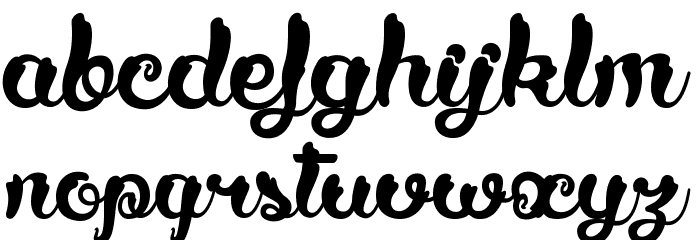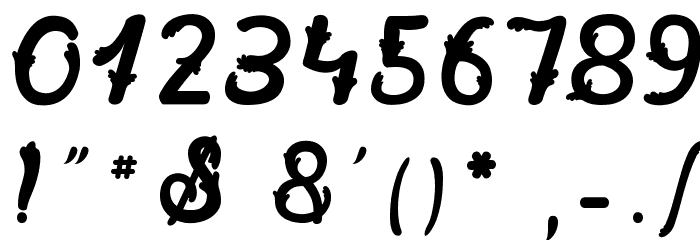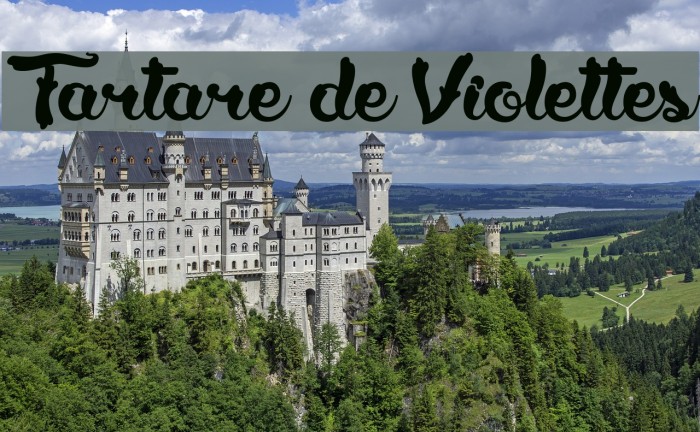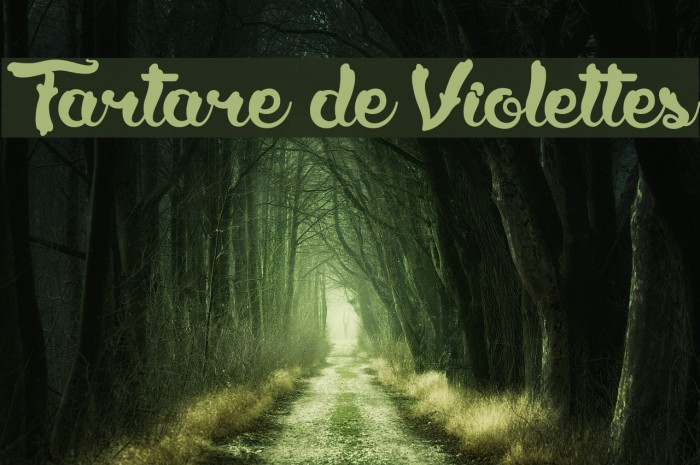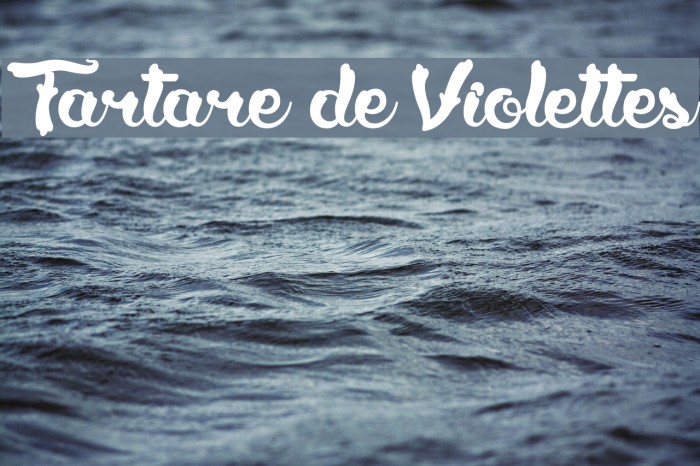
Tartare de Violettes Font
This font features a bold and expressive script style with a hand-drawn appearance. The letters are characterized by their thick, brush-like strokes and fluid, cursive connections. Uppercase letters are ornate and slightly larger than the lowercase, which maintains a consistent flow. The numbers and special characters follow the same artistic style, adding a playful yet sophisticated touch. The overall design is reminiscent of calligraphy, with a modern twist that makes it suitable for creative and artistic projects.
A bold, brush-style script font with a hand-drawn, calligraphic flair.
- Proposed Projects: Ideal for branding, invitations, greeting cards, and artistic posters.
- Category: Script
- Use Case: Logos, Headlines, Artistic projects